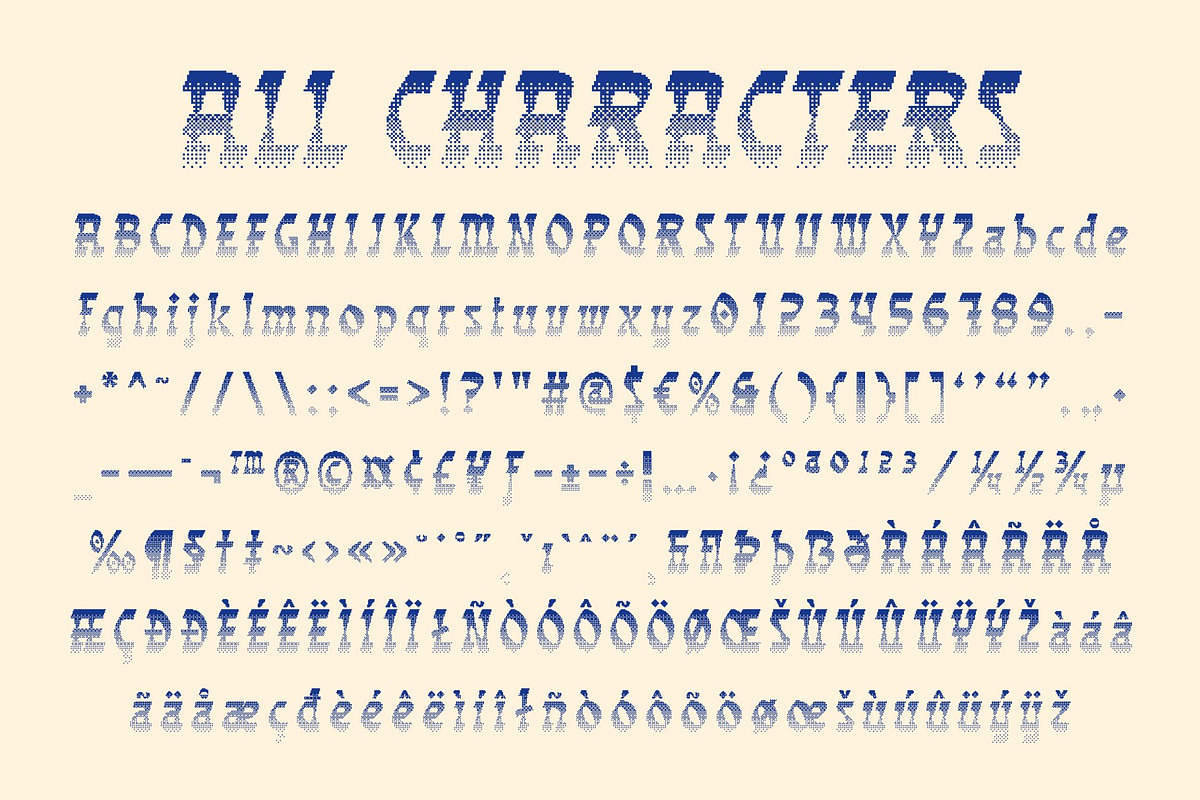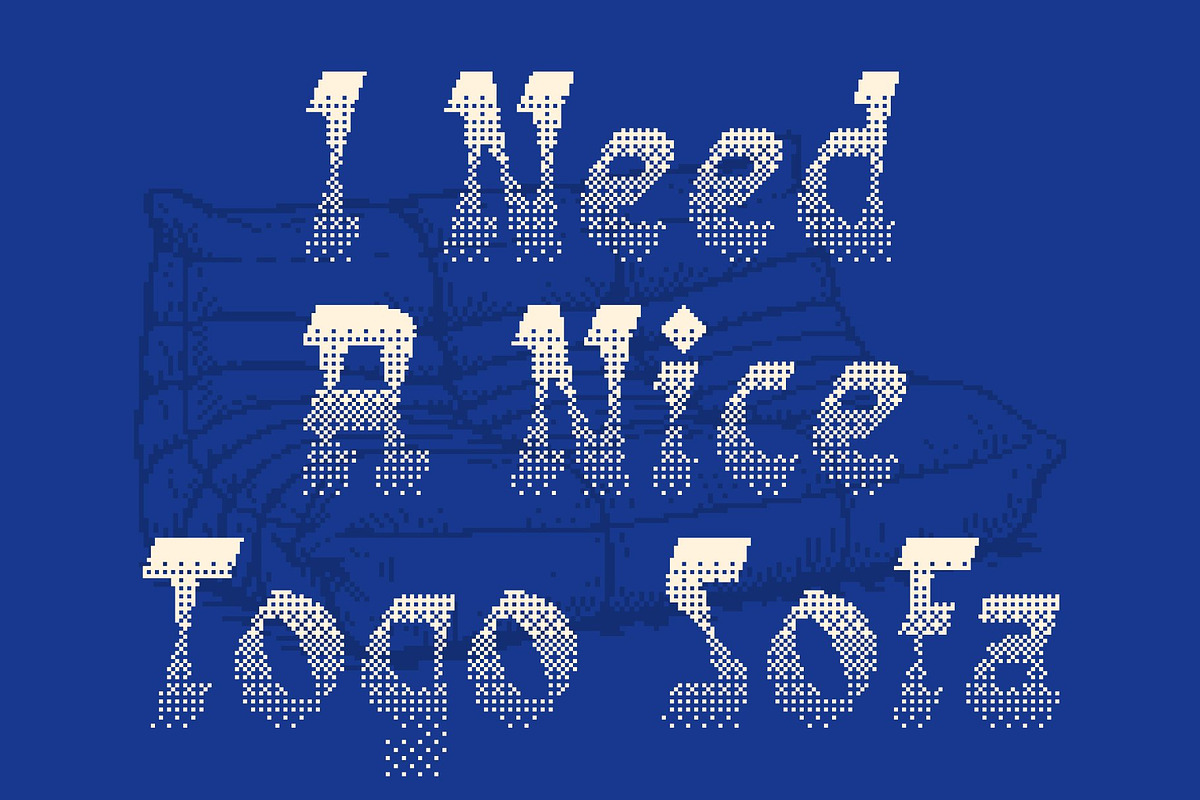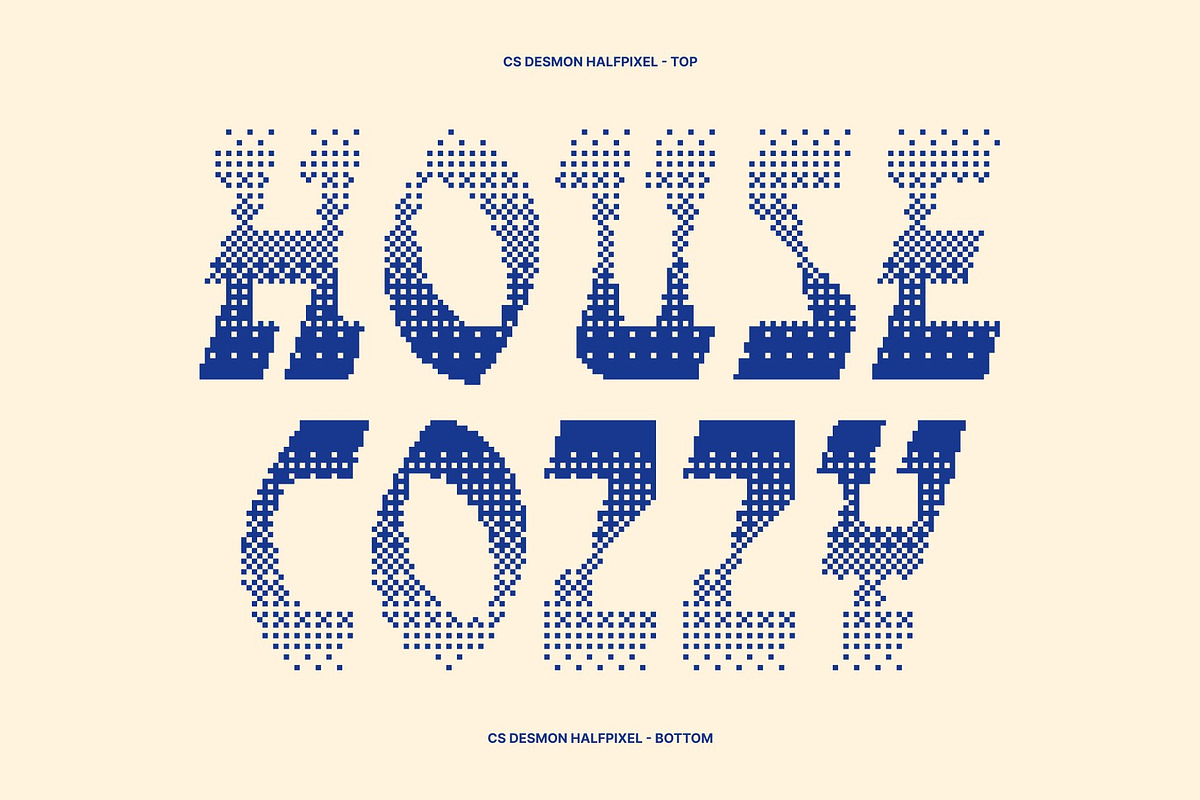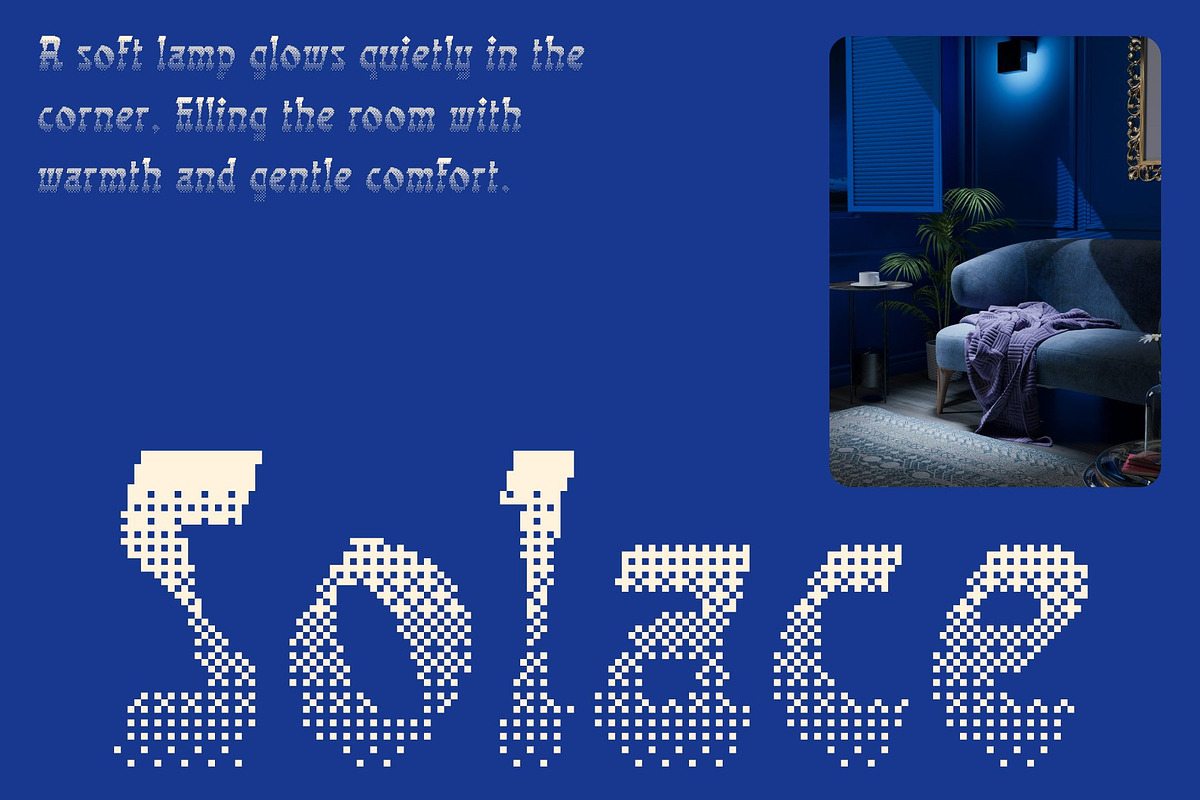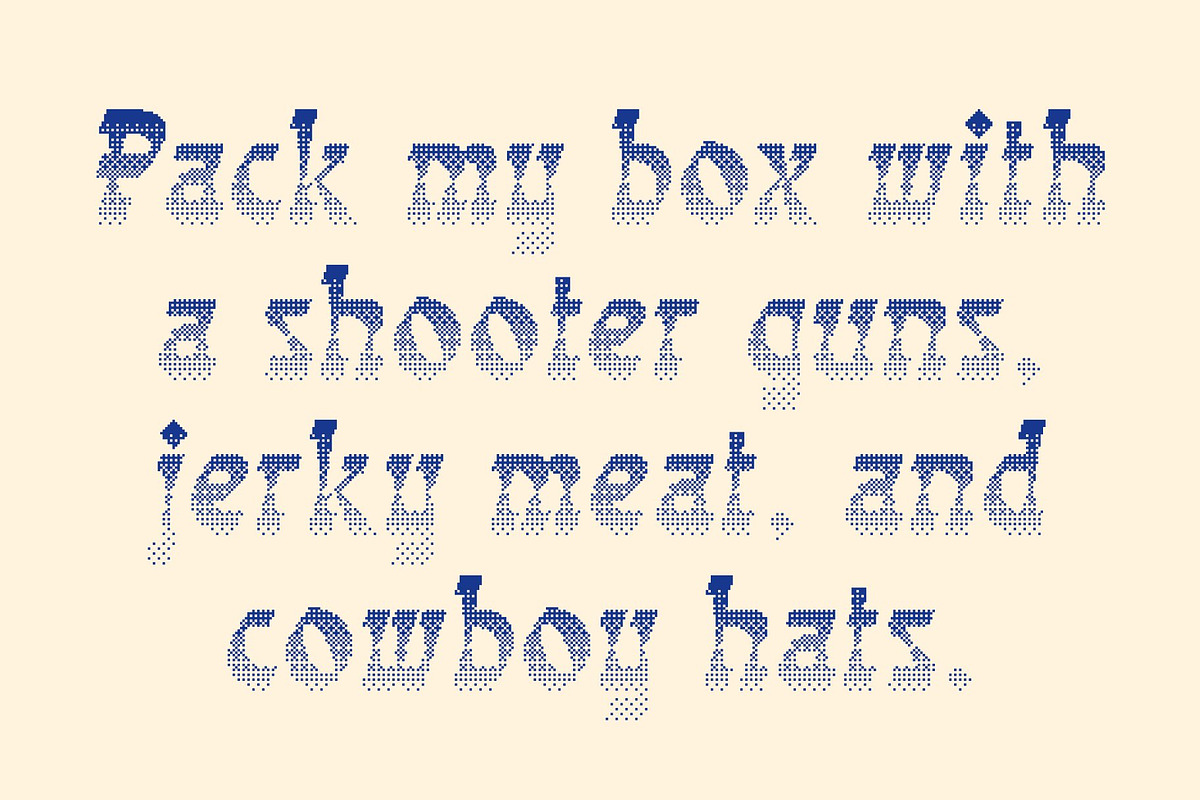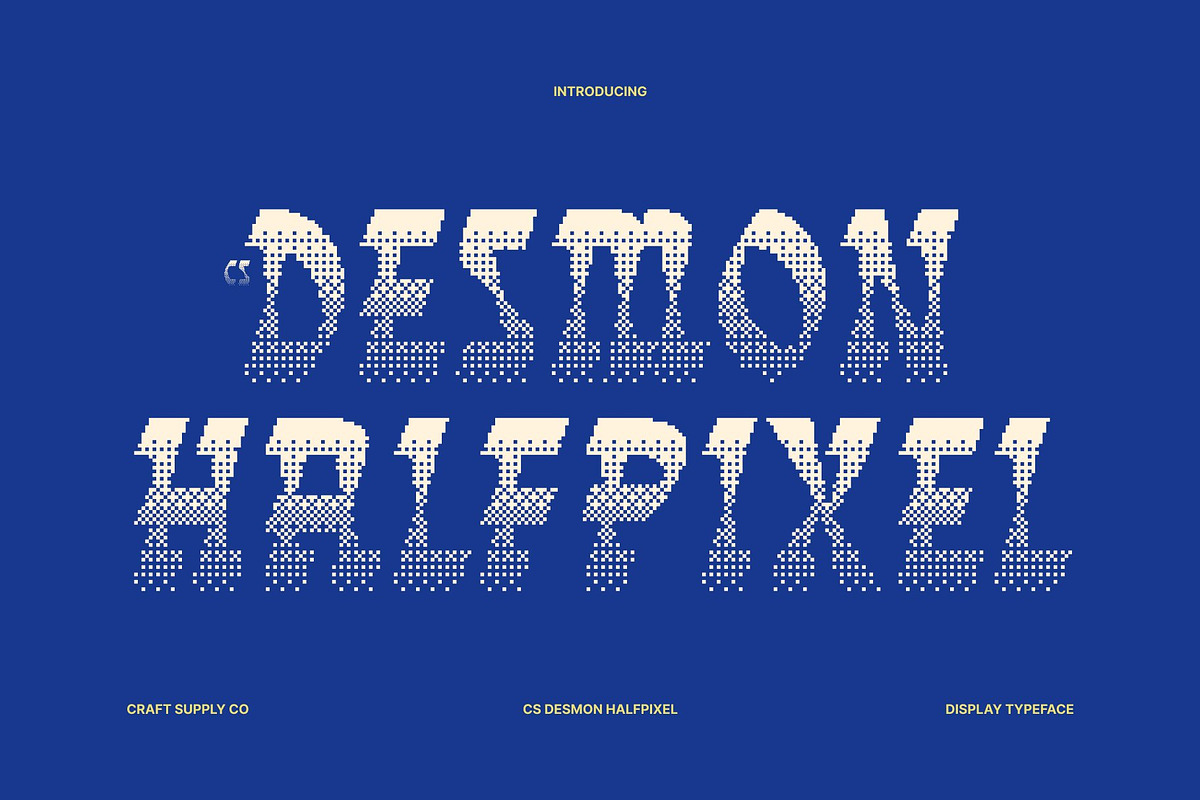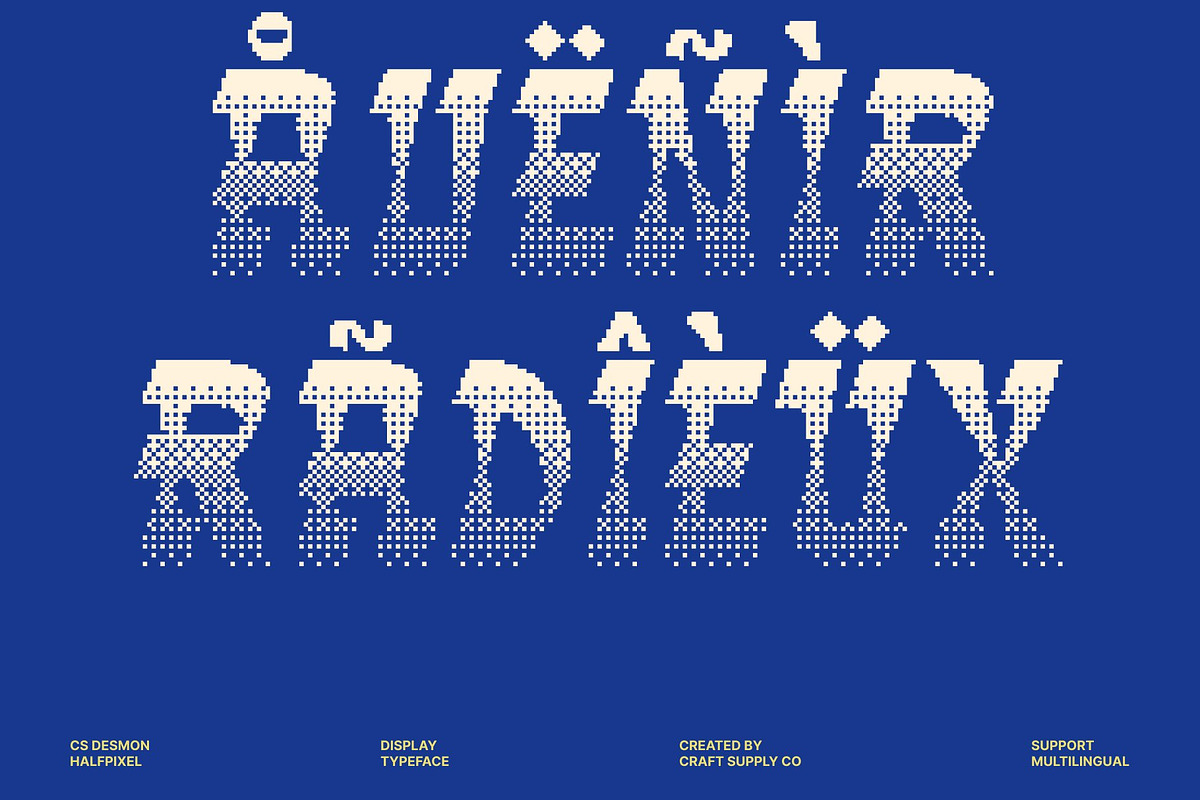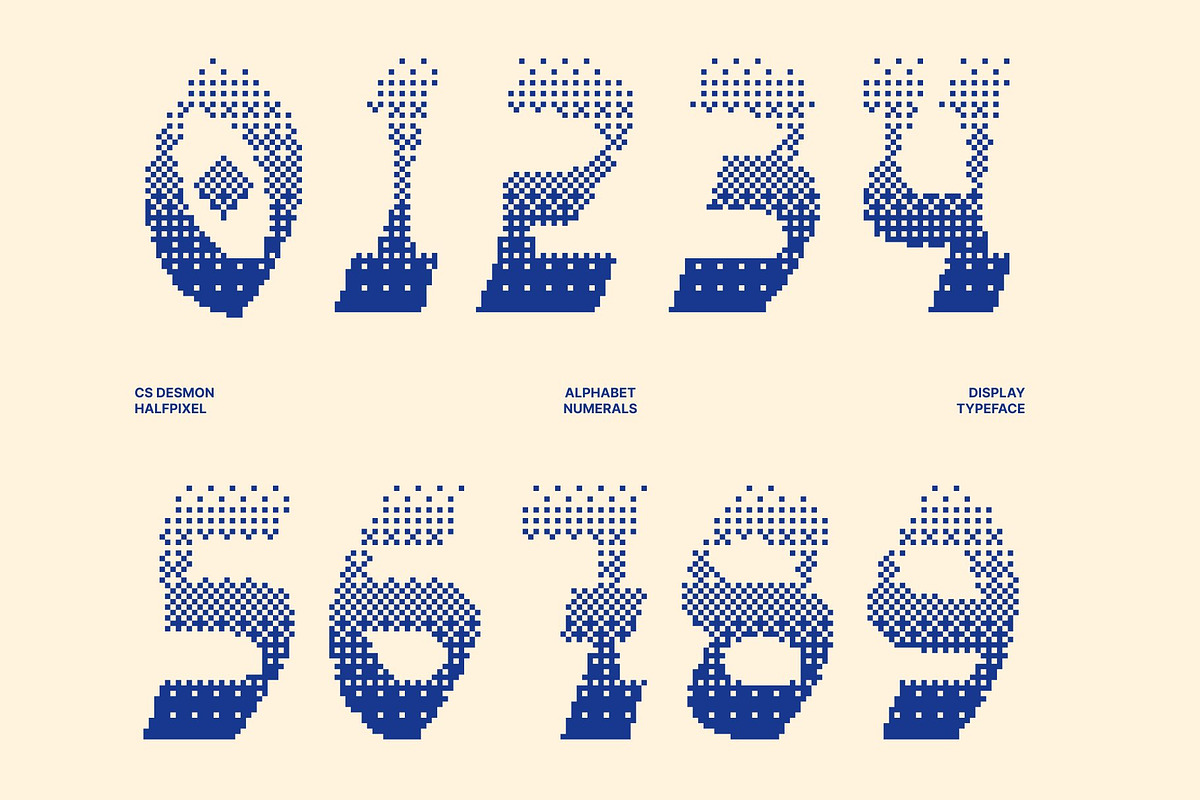
CS Desmon Halfpixel
CS Desmon Halfpixel – Reverse Contrast Display Font: Where Retro Funk Meets Smooth Digital Precision
Bold Unconventional Forms with Funky Retro Character This is a reverse contrast display font that combines serif-inspired structure with bold, funky, and unconventional styling. Its unique stroke contrast and expressive shapes create a striking visual identity filled with retro charm, playful energy, and artistic individuality. Every character feels bold and visually engaging, making the font perfect for standout display compositions and imaginative creative projects.
Halfpixel Effect with Smooth Retro-Digital Texture This font delivers a smoother and softer appearance than traditional pixel fonts. Using subtle anti-aliasing-inspired detailing, the edges of the letters gain a gentle blur effect that preserves retro-digital aesthetics while creating a more fluid and contemporary visual experience. This smooth pixel-inspired treatment gives the font a futuristic yet nostalgic personality.
Retro-Futuristic Style with Surreal Visual Energy Blending reverse contrast typography with smooth halfpixel detailing, this font delivers a typographic identity that feels experimental, surreal, and visually immersive. Its funky retro forms combined with softened digital texture evoke arcade culture, retro-futurism, stylized gaming visuals, and imaginative sci-fi aesthetics.
Perfect for Posters, Game Graphics, and Creative Titles This font ideal for titles, promotional posters, loading screen graphics, album artwork, event visuals, merchandise, and creative branding projects that seek a stylized retro-future atmosphere. Its unconventional halfpixel forms make it perfect for logos, headlines, gaming interfaces, apparel graphics, and visual identities that demand bold personality and memorable visual impact.
CS Desmon Halfpixel Regular
CS Desmon Halfpixel Italic